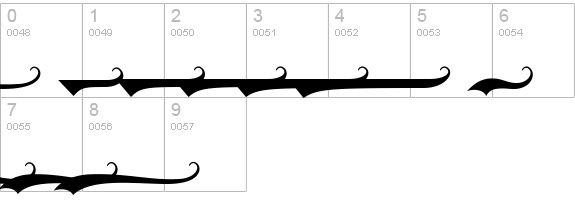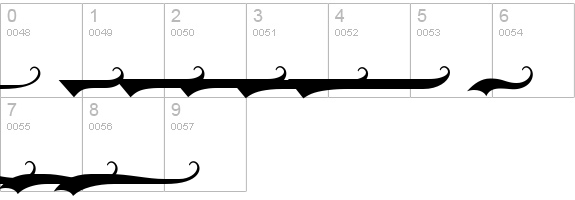
Krinkes Decor PERSONAL USE Font Details
Krinkes Decor PERSONAL USE font is an exquisite and versatile typeface that adds a touch of elegance and sophistication to any design project. This font is meticulously crafted with intricate details and delicate curves, making it perfect for invitations, wedding stationary, logos, and more. With its unique combination of calligraphic strokes and decorative elements, Krinkes Decor PERSONAL USE font is sure to make a lasting impression. Each character is beautifully designed with a balance of grace and charm, creating a harmonious flow that enhances the overall visual appeal. What makes Krinkes Decor PERSONAL USE font even more appealing is that it is available for free download at FontsMarket.com. This means you can effortlessly add a touch of class to your designs without having to worry about any additional costs. It's a font that not only looks stunning but is also budget-friendly. Whether you're a professional designer or someone who simply appreciates beautiful typography, Krinkes Decor PERSONAL USE font is a must-have in your font collection. Its versatility allows it to be used in a variety of design projects and its timeless appeal ensures that it will never go out of style. So why wait? Download Krinkes Decor PERSONAL USE font for free at FontsMarket.com and elevate your designs to a whole new level of elegance and sophistication.